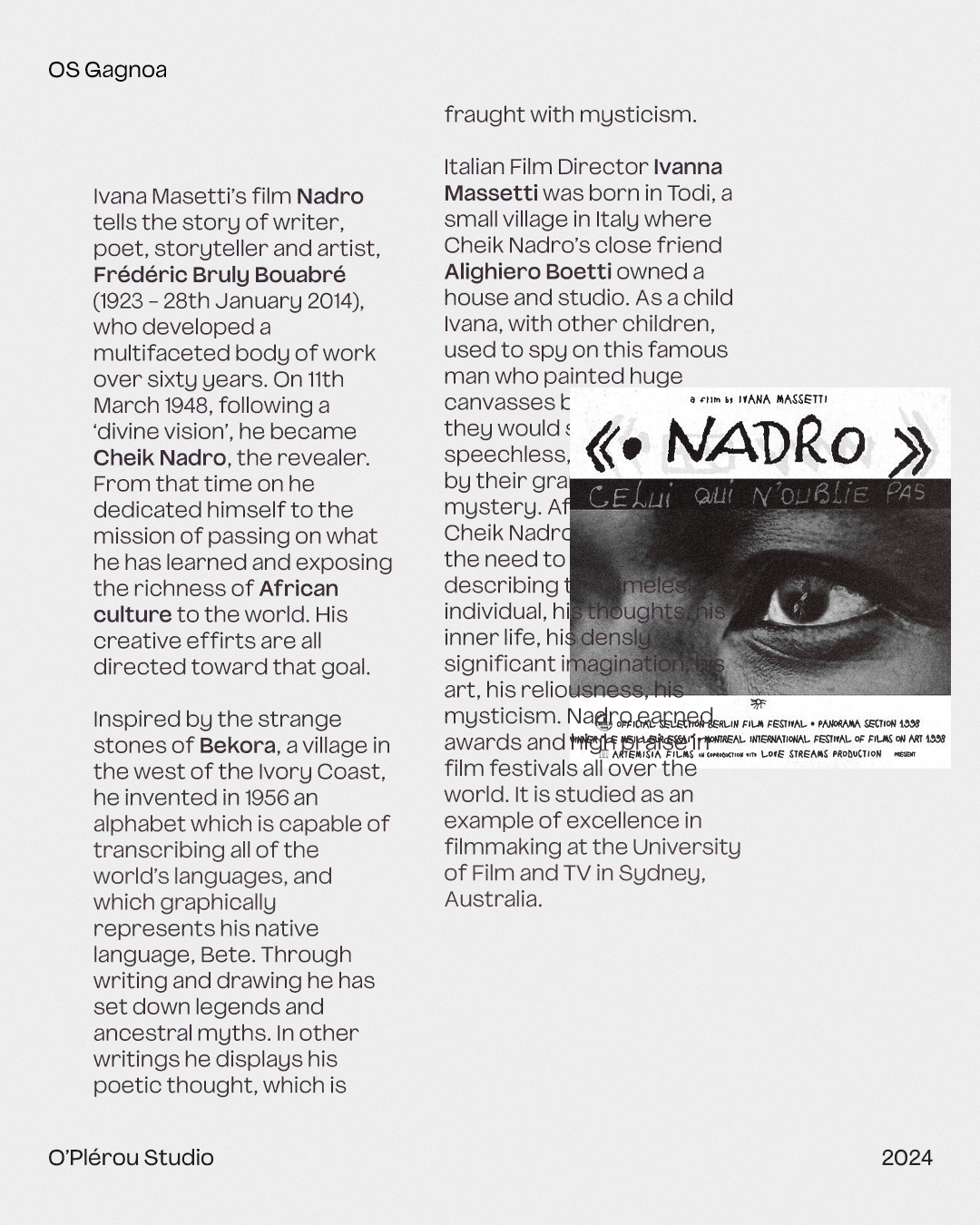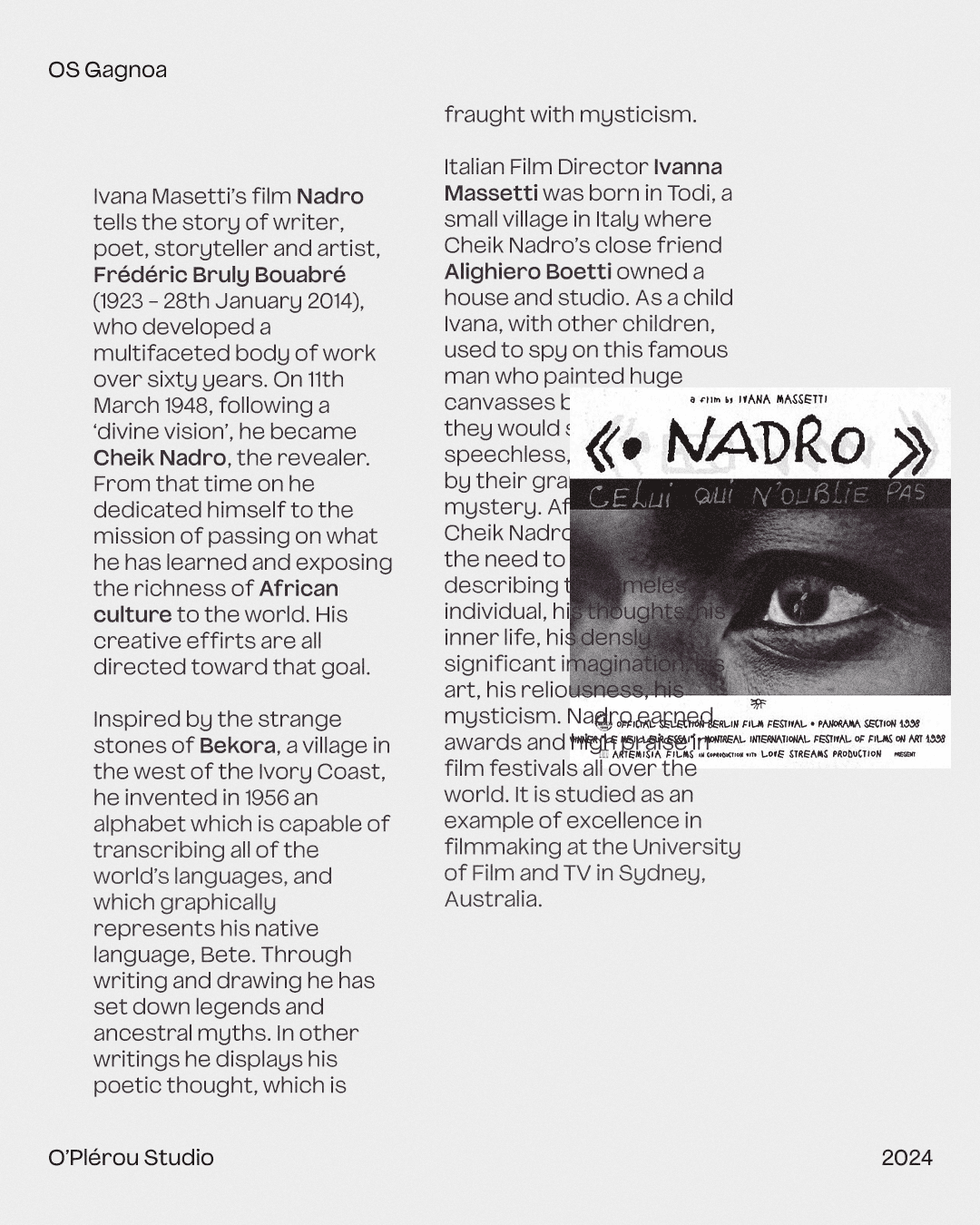
Gagnoa Paragraph recedes visually, allowing content to command attention while maintaining the collection's clarity and warmth. Built for sustained reading where the typography prioritize message over messenger.
Gagnoa Paragraph is designed for contexts where the message matters more than the medium. The narrower letterforms soften the visual presence of the high x-height, creating a quieter reading experience that invites focus and sustained attention.
Named after Gagnoa, a city in southwestern Côte d'Ivoire, Paragraph carries the same cultural DNA as its siblings but speaks with restraint. The brushstroke-inspired terminals, unaligned crossbars, and warm personality remain intact, but the condensed proportions shift the balance from typographic presence to content primacy.
Gagnoa Paragraph excels in long-form contexts, anywhere the reader should disappear into the text rather than notice the typeface. Great for projects where cultural transmission happens through deep engagement, not bold declaration.